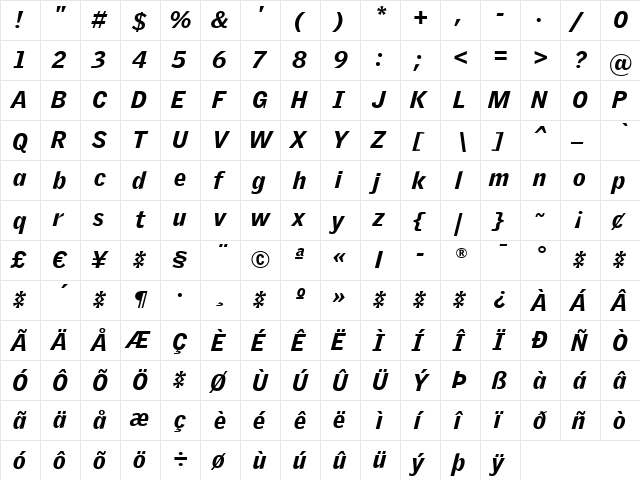
GriffithGothic Italic Font Preview
GriffithGothic Italic
GriffithGothic Italic Font Details
| Foundry | The Font Bureau, Inc |
Design Context for GriffithGothic Typeface
GriffithGothic takes a clean, functional approach — its unadorned letterforms prioritise legibility and work reliably across screen and print environments. Its italic angle brings a sense of urgency and motion to the letterforms.
Font Pairing: Works well alongside a characterful serif or display font that can carry the expressive load while GriffithGothic handles the functional copy.
Pro Tip: Pair GriffithGothic with a display or serif font for headlines — its neutral character makes it an excellent supporting player in complex typographic systems.